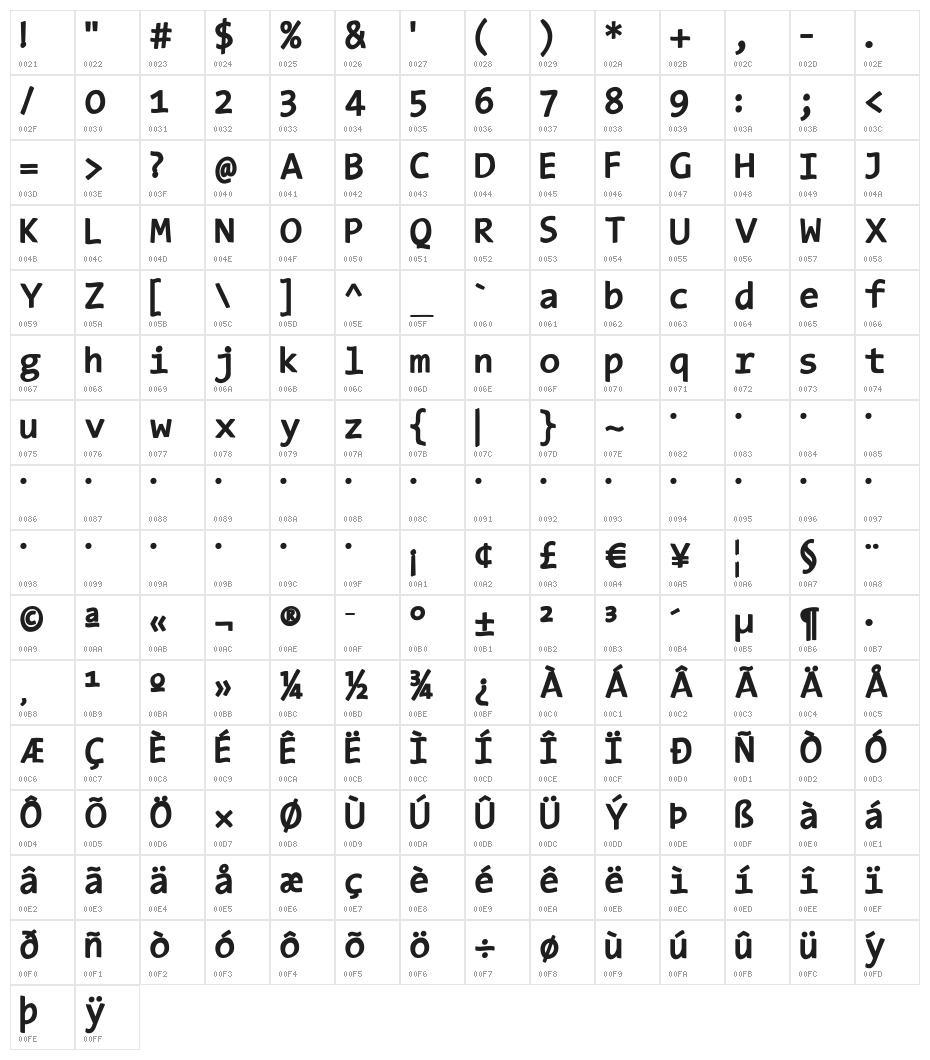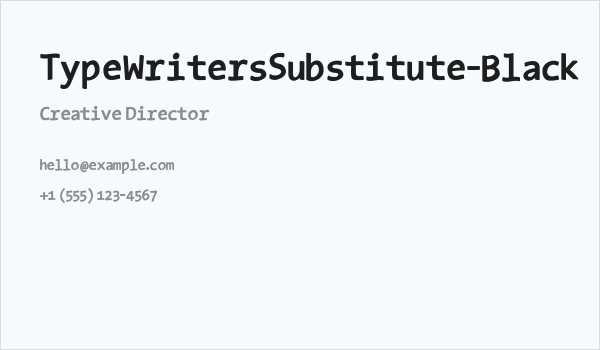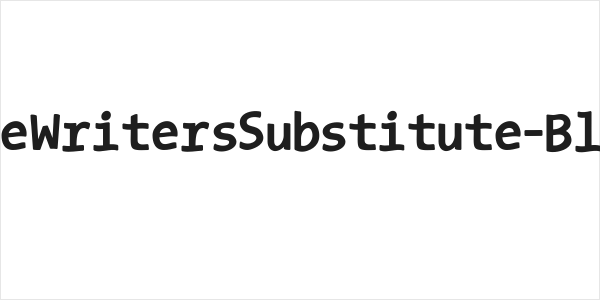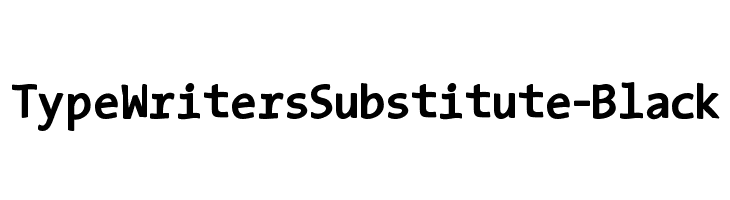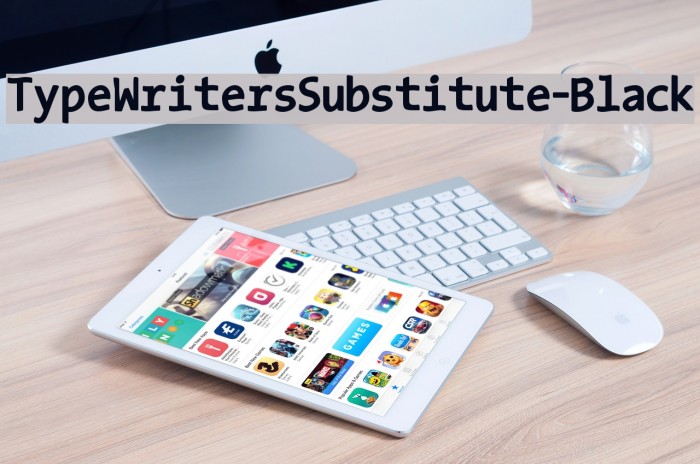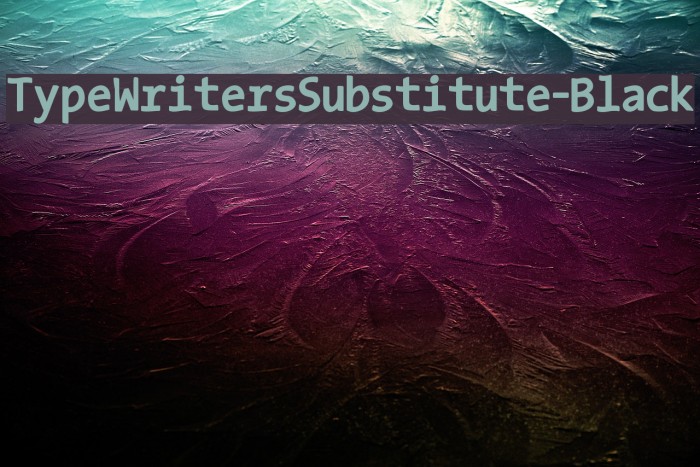
TypeWritersSubstitute-Black Font
TypeWritersSubstitute-Black Description
This font features a bold and playful style reminiscent of classic typewriter fonts but with a modern twist. The characters are rounded and slightly irregular, giving it a casual and approachable feel. The uppercase letters are robust and well-defined, while the lowercase letters maintain a consistent flow with a touch of whimsy. Numbers and special characters are clear and legible, making this font versatile for various uses. Its boldness ensures readability, and the unique character shapes add personality to any text.
| Proposed Projects | Ideal for creative projects such as posters, invitations, and branding materials where a casual yet distinctive look is desired. |